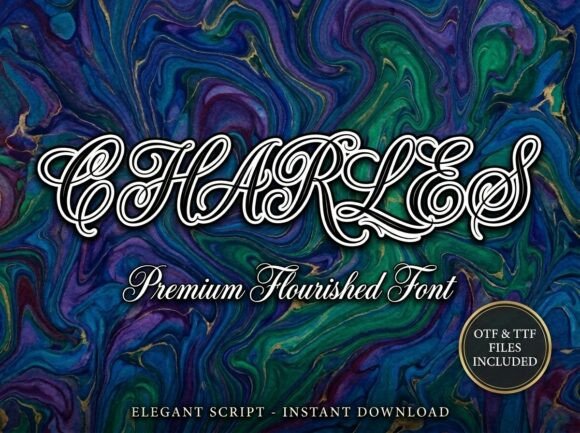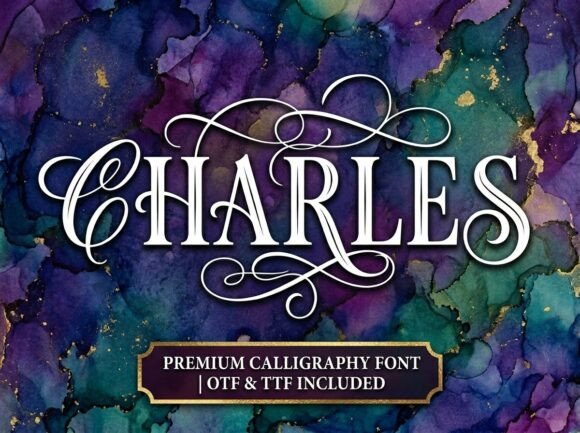
Experience the Elegance of Traditional Artistry with Charles Font
In the world of typography, few fonts capture the essence of classical grandeur and traditional artistry as beautifully as Charles. This premium calligraphy font is a masterpiece of modern design, inspired by the timeless elegance of handwritten scripts. With its dramatic, sweeping flourishes and intricate loops, Charles exudes a sense of luxury and sophistication that is unmatched by many of its contemporaries.
The Characteristics of Charles Font
Charles is defined by its high-contrast strokes, which give it a distinctive and elegant appearance. The font features breathtakingly ornamental capitals, each one carefully crafted to convey a sense of refinement and poise. The sweeping flourishes and intricate loops that characterize Charles are a testament to the skill and craftsmanship of its designer, who has painstakingly perfected every detail to create a truly exceptional typeface.
Perfect for Luxury Applications
Given its classical grandeur and sophisticated appearance, Charles is the perfect choice for a variety of luxury applications. Whether you’re looking to create high-end certificates, formal event invitations, cinematic titles, or heritage branding, this premium calligraphy font is sure to impress. Its dramatic, sweeping flourishes and intricate loops evoke a sense of tradition and heritage, making it an ideal choice for brands and designers who want to convey a sense of timeless elegance and refinement.
Crafting with Charles Font
For designers and crafters, Charles offers a wealth of creative possibilities. Its high-contrast strokes and ornamental capitals make it perfect for a variety of design applications, from luxury packaging to high-end editorial design. Whether you’re working on a bespoke wedding invitation or a luxury brand identity, Charles provides the perfect combination of elegance and sophistication.
The Benefits of Using Charles Font
So why choose Charles for your design projects? Here are just a few benefits of using this premium calligraphy font:
- Elegance and sophistication: Charles exudes a sense of classical grandeur and refinement, making it perfect for luxury applications.
- High-contrast strokes: The font’s high-contrast strokes give it a distinctive and elegant appearance.
- Ornamental capitals: The breathtakingly ornamental capitals in Charles are a testament to its designer’s skill and craftsmanship.
- Flexibility: Charles is perfect for a variety of design applications, from luxury packaging to high-end editorial design.
Tips for Using Charles Font Effectively
To get the most out of Charles, here are a few tips for using it effectively:
- Use it sparingly: Given its elegant and sophisticated appearance, Charles is best used sparingly to avoid overwhelming the reader.
- Pair it with a sans-serif font: Pairing Charles with a sans-serif font can create a striking contrast that adds visual interest to your design.
- Experiment with different colors: Charles looks stunning in a variety of colors, from rich golds and blacks to elegant silvers and whites.
In conclusion, Charles is a premium calligraphy font that offers a unique combination of elegance, sophistication, and refinement. With its high-contrast strokes, ornamental capitals, and sweeping flourishes, it’s the perfect choice for luxury certificates, formal event invitations, cinematic titles, and heritage branding. Whether you’re a designer or crafter, Charles provides the perfect opportunity to add a touch of classical grandeur to your design projects.